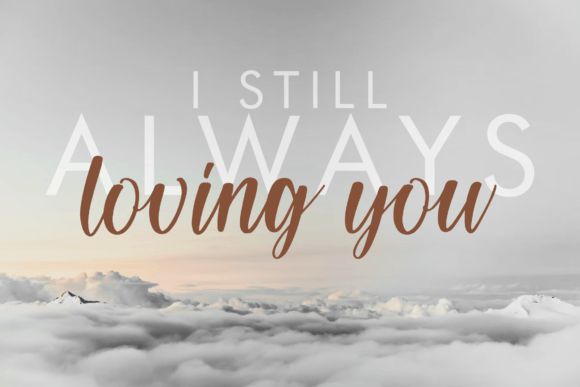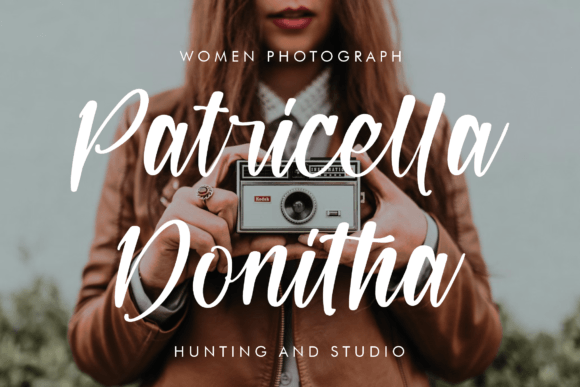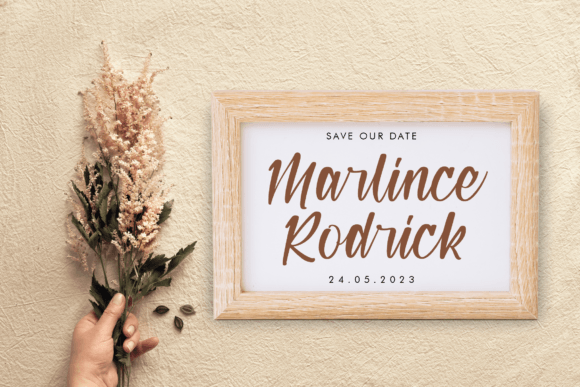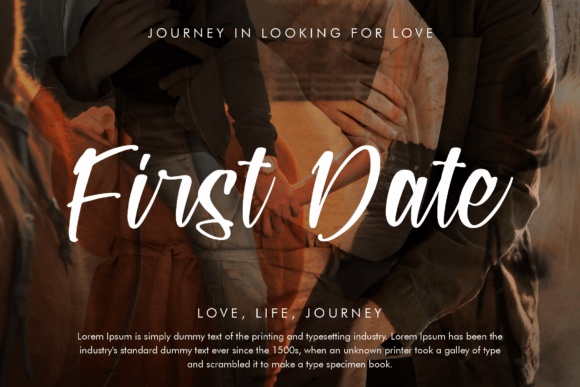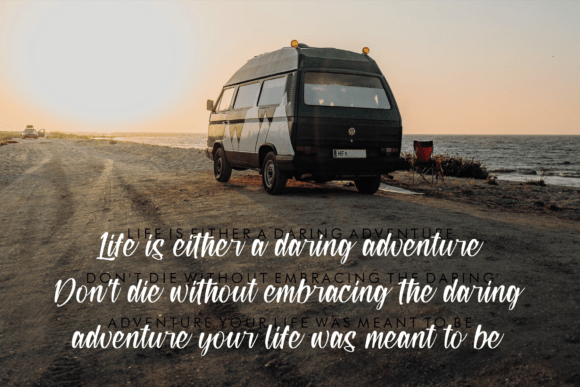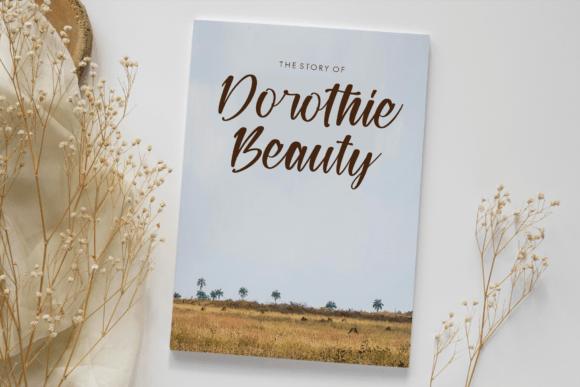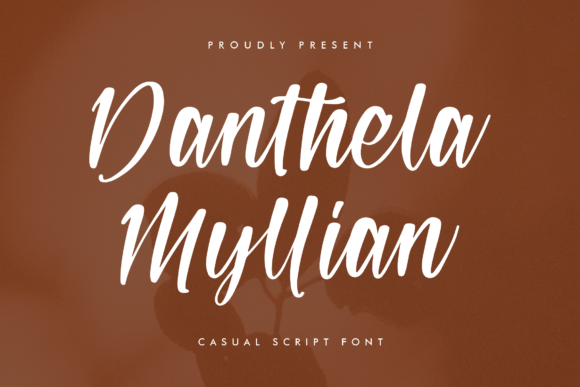
Danthela Myllian Font: Elevate Your Designs with Elegance
Are you a designer or crafter looking for a font that exudes elegance and sophistication? Look no further than Danthela Myllian, a stunning script font that can elevate your projects to new heights. In this article, we’ll dive into the world of Danthela Myllian, exploring its features, uses, and benefits, and why it’s a must-have for any creative looking to add a touch of luxury to their designs.
What is Danthela Myllian Font?
Danthela Myllian is a beautiful script font, carefully crafted to bring a sense of refinement and poise to any project. Its elegant strokes and flowing curves make it perfect for designs that require a touch of sophistication. Whether you’re working on a logo, branding project, or product packaging, Danthela Myllian is the ideal choice for adding a dash of elegance.
Features of Danthela Myllian Font
So, what makes Danthela Myllian stand out from the crowd? Here are some of its key features:
- Elegant Script Style: Danthela Myllian boasts a beautiful script style that’s perfect for designs that require a touch of sophistication.
- Versatile: This font is suitable for a wide range of projects, from logos and branding to homeware designs, product packaging, and more.
- Easy to Read: Despite its elegant style, Danthela Myllian is easy to read, making it perfect for body text and captions.
- Scalable: This font is highly scalable, ensuring that it looks great at any size.
Uses of Danthela Myllian Font
Danthela Myllian is an incredibly versatile font that can be used in a variety of projects, including:
- Logos and Branding: Create a lasting impression with a logo that exudes elegance and sophistication.
- Homeware Designs: Add a touch of luxury to your homeware designs, from stationery to textiles.
- Product Packaging: Elevate your product packaging with a font that’s both elegant and eye-catching.
- Mugs and Apparel: Create stunning mugs, t-shirts, and other apparel with Danthela Myllian.
- Posters and Quotes: Make a statement with elegant posters and quotes that showcase your message.
Benefits of Using Danthela Myllian Font
So, why should you choose Danthela Myllian for your next project? Here are some benefits of using this stunning font:
- Adds Elegance: Danthela Myllian brings a touch of sophistication and elegance to any project.
- Versatile: This font can be used in a wide range of projects, making it a great addition to your font library.
- High-Quality: This font is crafted with high-quality techniques, ensuring that it looks great in any design.
Tips for Using Danthela Myllian Font
To get the most out of Danthela Myllian, here are some tips to keep in mind:
- Pair with Other Fonts: Experiment with pairing Danthela Myllian with other fonts to create stunning contrast.
- Use for Headings: Use Danthela Myllian for headings and titles to add a touch of elegance.
- Experiment with Colors: Try out different colors to see how they affect the overall look of your design.
Danthela Myllian is a stunning script font that’s perfect for designers and crafters looking to add a touch of elegance to their projects. With its elegant strokes, flowing curves, and versatility, this font is sure to become a staple in your font library. Whether you’re working on a logo, branding project, or product packaging, Danthela Myllian is the ideal choice for elevating your designs to new heights.